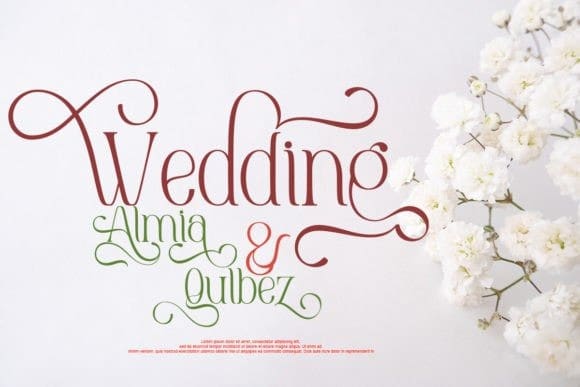
Rain Love Font
Rain Love Font is a font that is elegant and very stylish, this font is really sweet to use as some of your design work if you want to display a modern and bold style, there are several characters that you can use, as an additional style that will make your design more classy and looks different